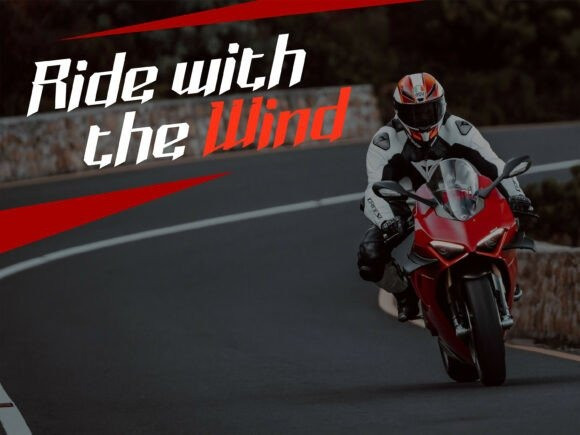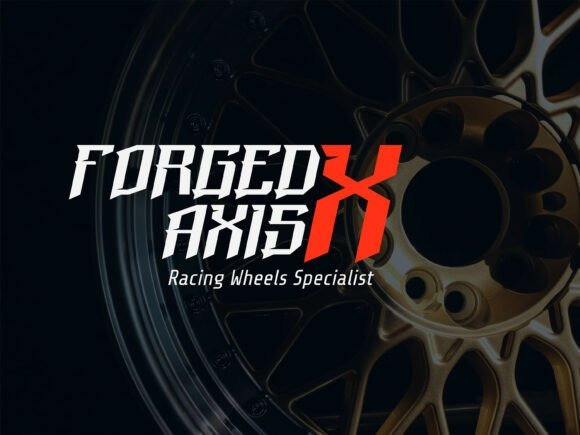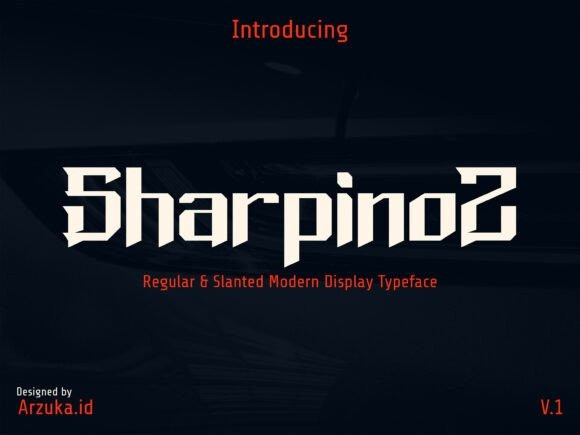
Sharpinoz Font
Sharpinoz Font is a bold and aggressive display typeface crafted for high-energy visuals. Designed with sharp angles, dynamic strokes, and a fast-forward slanted style, Sharpinoz delivers the perfect racing attitude for any project that demands power, movement, and adrenaline.
Featuring Regular and Slanted styles, Sharpinoz brings versatility for headlines, logos, esports branding, poster titles, motorsport graphics, magazine layouts, apparel, and anything that needs a strong competitive punch.